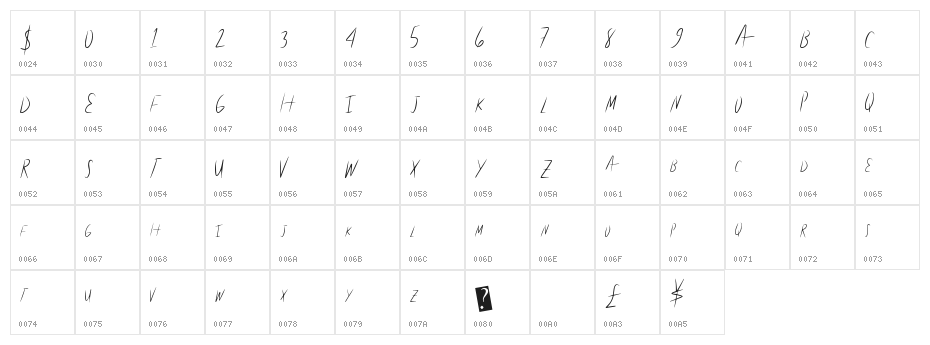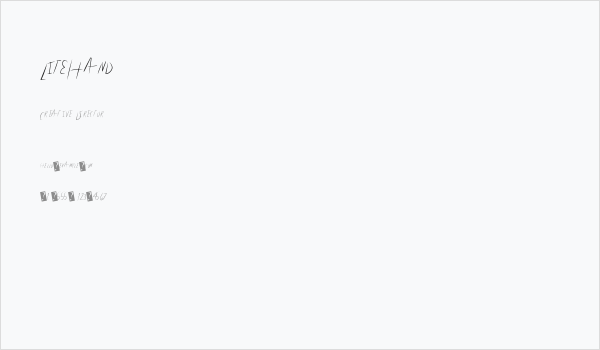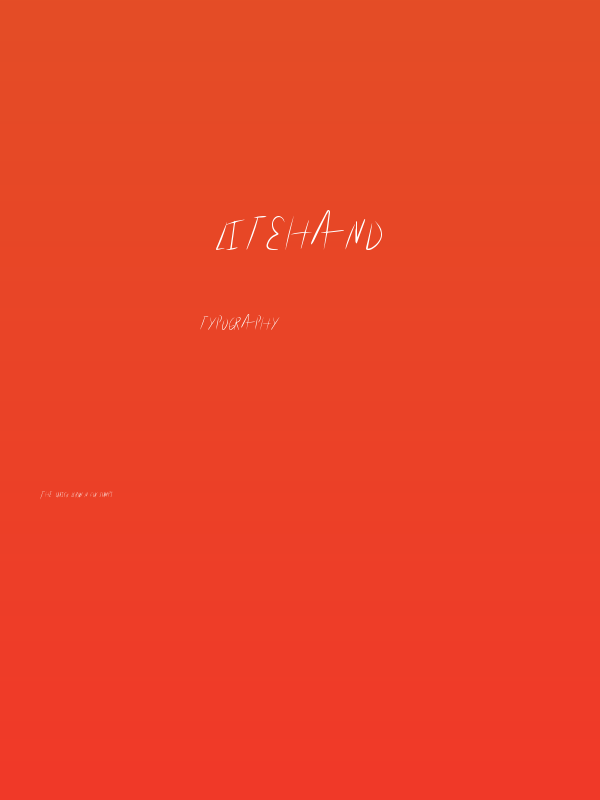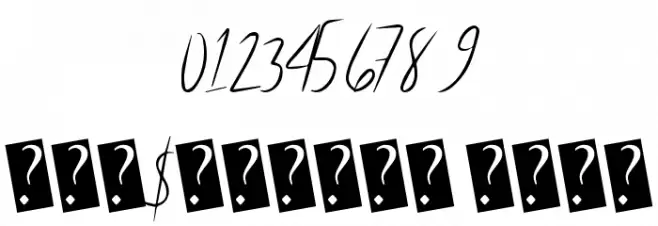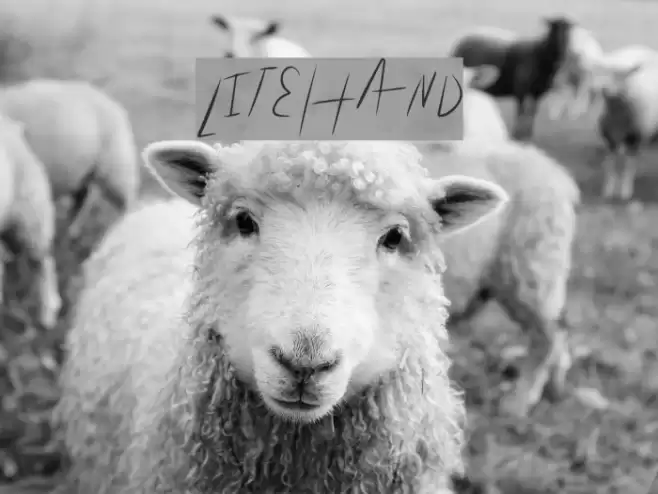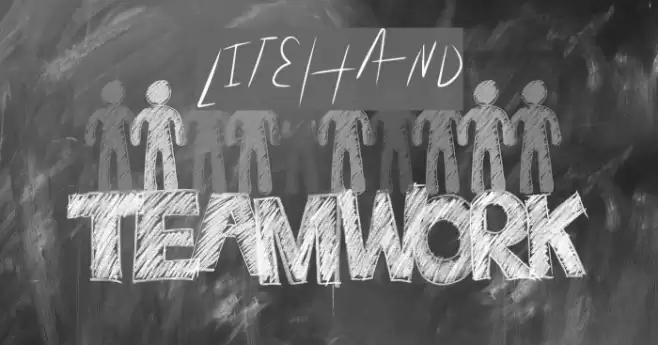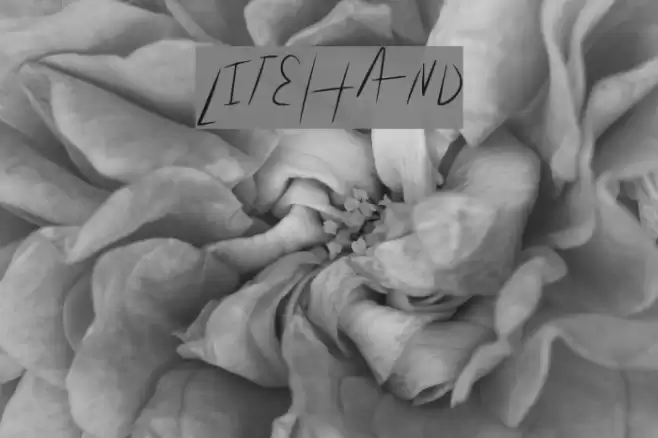
LiteHand Font
LiteHand Description
This font exhibits a casual, handwritten style with a playful and dynamic appearance. The letters are slightly slanted, giving a sense of movement and spontaneity. The strokes vary in thickness, adding a lively and informal touch. The uppercase and lowercase letters are distinct yet harmonious, maintaining a consistent flow throughout. The numbers follow the same playful style, making them easily readable while retaining the font's unique character. The special characters are designed to match the overall aesthetic, ensuring a cohesive look across all text elements.